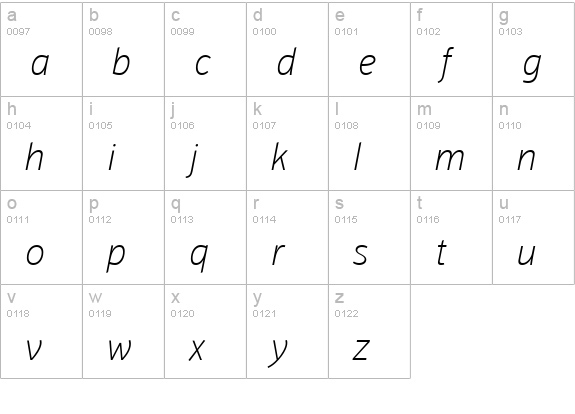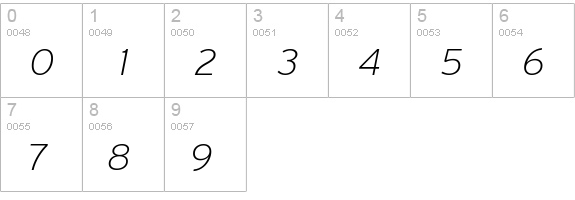
PFHighwaySansPro-ThinItalic is a sleek and modern typeface that exudes elegance and sophistication. With its thin strokes and stylish italics, this font is perfect for creating a contemporary and refined look in your design projects. The delicate curves and precise angles of PFHighwaySansPro-ThinItalic make it a versatile choice for a wide range of applications, from branding and advertising to editorial design and web graphics. What's even better is that PFHighwaySansPro-ThinItalic is available for free download at FontsMarket.com. This means that you can easily access this high-quality font without breaking the bank. Whether you're a seasoned designer looking to refresh your font library or a newcomer in need of a stylish typeface for your projects, PFHighwaySansPro-ThinItalic is a fantastic choice that won't cost you a dime. Download it today and elevate your designs with this stunning font.